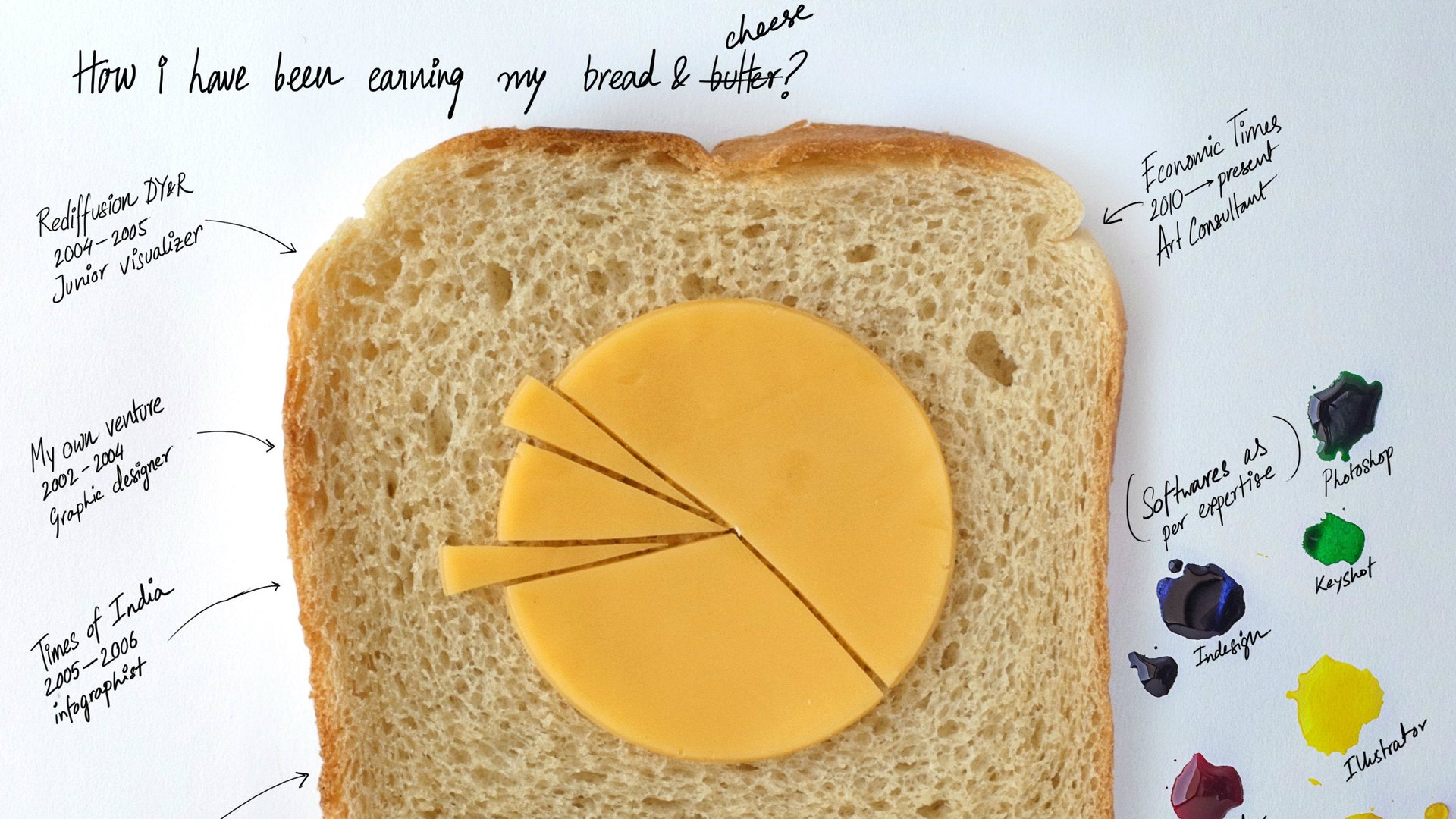
The internet has not been the best design teacher when it comes to formatting résumés.
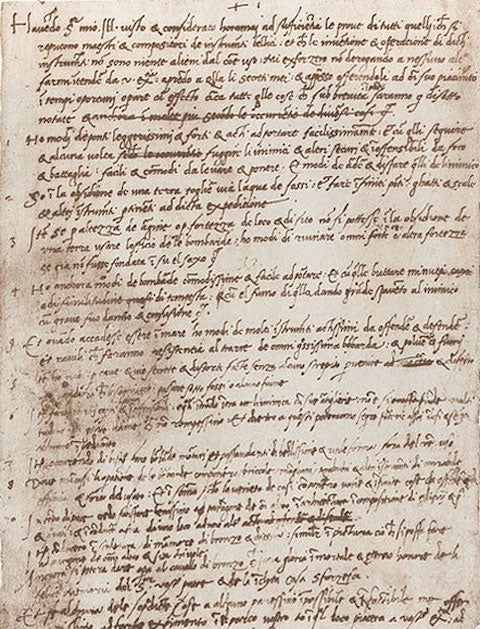
Since the time of Leonardo da Vinci, who once succinctly summarized his credentials for the Duke $DUK of Milan on a sheet of parchment, the document has been a jobseeker’s first (and hopefully best) foot forward. Even in the age of LinkedIn profiles, online portfolios, and personal websites, it remains a necessary formality—one that, done right, could land you the interview, if not the job.
Several prescriptive guides have emerged of late in an attempt to establish best practices when crafting such a defining sheet. But a recent crop of articles that either trivialize or fixate on fonts have missed the bigger picture. Like the business card or the cover letter (or any piece of graphic design for that matter) it’s not just about the typography, but also about the format, the audience and the medium.
For design wisdom, we turned to real professors, Alexander Tochilovsky and Cara Di Edwardo, who teach at the legendary Cooper Union School of Art in New York City, and organizers of a unique 10-day typography festival this month geared for “people who use type.” Here are some of their pointers.
Some larger companies use applicant tracking system scanning software with optical character recognition technology (OCR) to convert data from your résumé for their database. For those systems, many advise sticking to Helvetica or standard PC fonts, which electronic readers do a good job parsing.
“But,” Di Edwardo says, “if a human being with any kind of aesthetic sensitivity is reading it, then there’s a million that could work.” So how does one choose which font to use from the millions of possibilities? Sites like a Adobe $ADBE have organized their collection by use but the choice really boils down to what kind of job you want to get.
As a rule of thumb, Tochilovsky recommends fonts that facilitate reading and advises against getting too hung up on the pseudo-psychology of individual typefaces. Steer clear of fancy decorative typefaces or script fonts that are difficult to skim, he says. Instead select a simple, legible font to accommodate all scanners—both humans or robots. ”No matter what,” he says, “it needs to be a professional-looking typeface.”
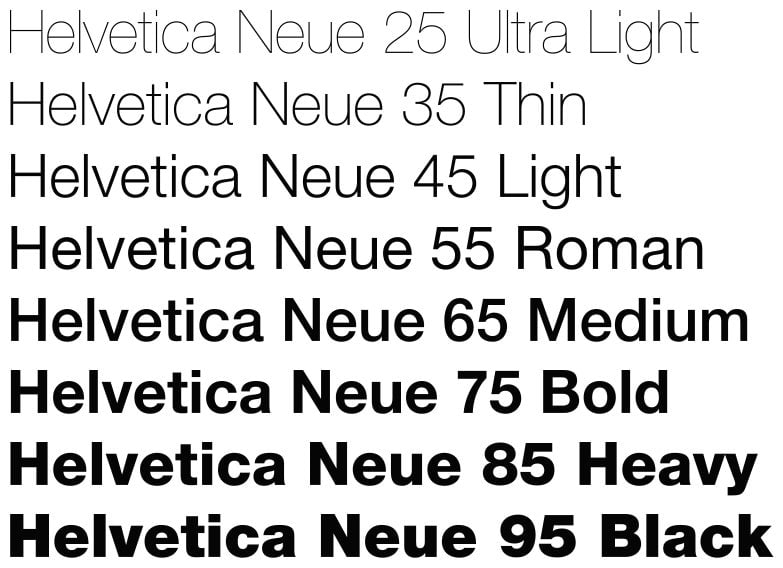
A font has a family—light, bold, italics, small caps, or condensed, for example. The strategic use of these versions help create emphasis and hierarchy a document. For example, you might choose Helvetica bold for the job title and Helvetica light for the details. “If you pay attention to the mechanics of how font families work, you can elevate, emphasize and filter certain bits of information,” explains Tochilovsky. A résumé that switches between fonts tends to look circusy and will draw more attention to the acrobatics of its formatting than its content.
Tochilovsky adds that some fonts are designed to be wider, so you can beef up a slightly scant page with a fatter fonts. Or a slimmer font may allow you to legibly fit more information onto the page.
Designing a résumé is all about conveying information clearly and quickly, Tochilovsky says, and to that end, there must be a balance between information and white space. “The more crucial matter is how it’s designed, rather than the typography,” he said.
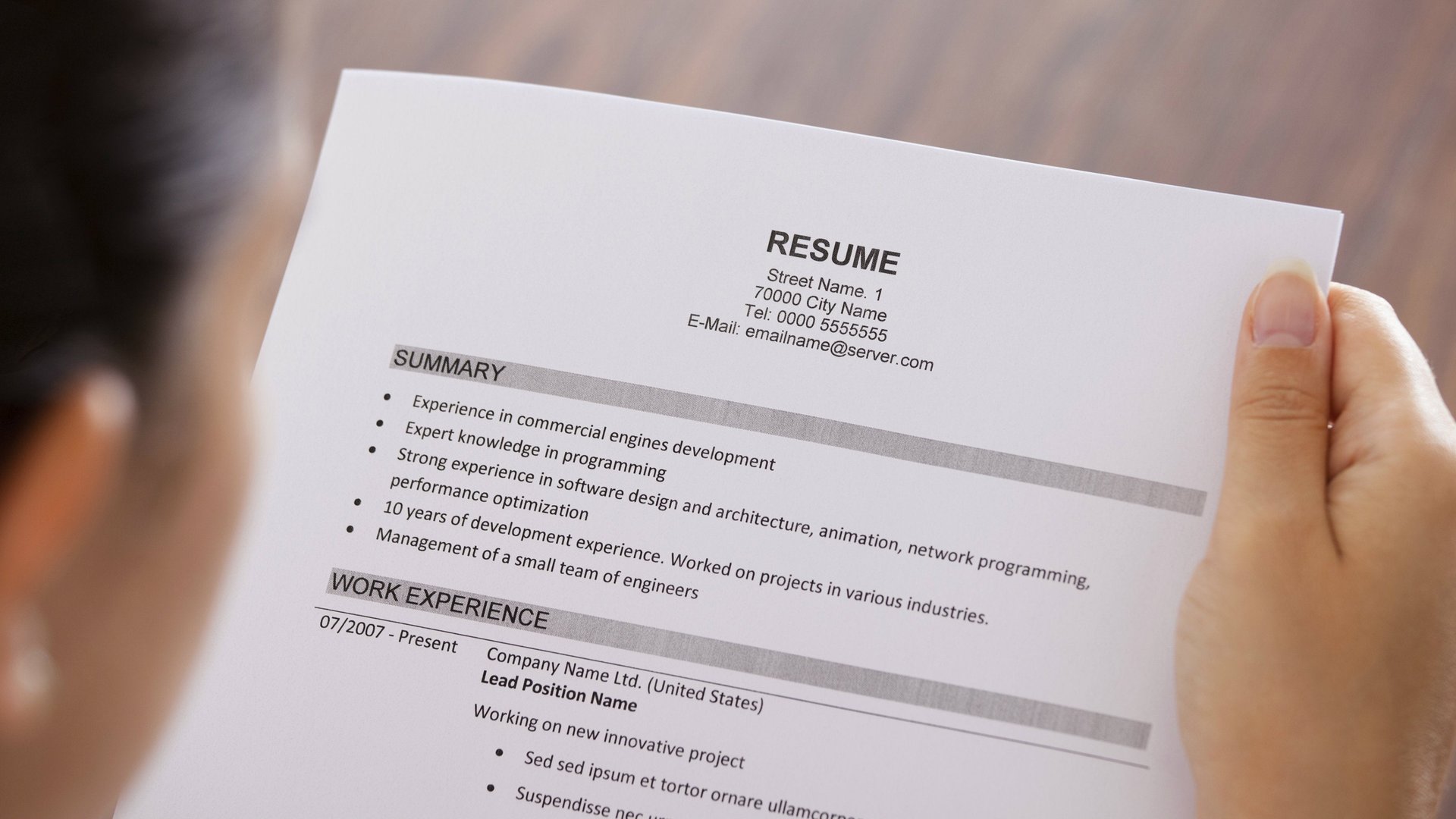
Designing for speed-reading is critical here. A study (pdf) conducted by The Ladders, an employment website, in 2012 showed that recruiters spend an average of just 6 seconds scanning résumés before making snap judgements on whether to move it forward or not. “You don’t want them to be searching for what years you were at this job or other important details,” Tochilovsky cautions. “Ultimately it’s about the clear presentation of information.”
Ignore what the internet says and resist the temptation to make your résumé into a poster design project. A résumé is a business document, not a canvas for artistic expression—even if you are an artist or designer looking for a job.
As Leonardo da Vinci realized, a resume is a summary sheet of your education, credentials and experience. Dazzle with your portfolio, but for a resume, be kind to your prospective employer’s eyes and follow a straightforward layout with sufficient margins and line spacing. Restraint, not pizzaz, is the creative direction to follow.